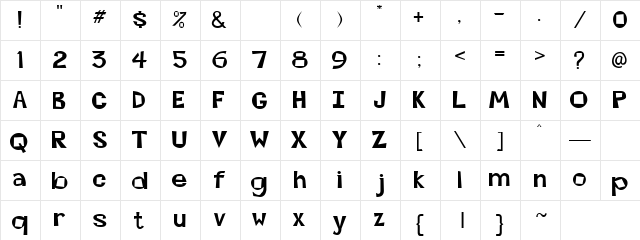
Rects Vallet Regular Font Preview
Rects Vallet Regular
Rects Vallet Regular Font Details
Design Context for Rects Vallet Typeface
Rects Vallet is a composed and adaptable typeface that performs quietly and consistently across a wide range of design contexts.